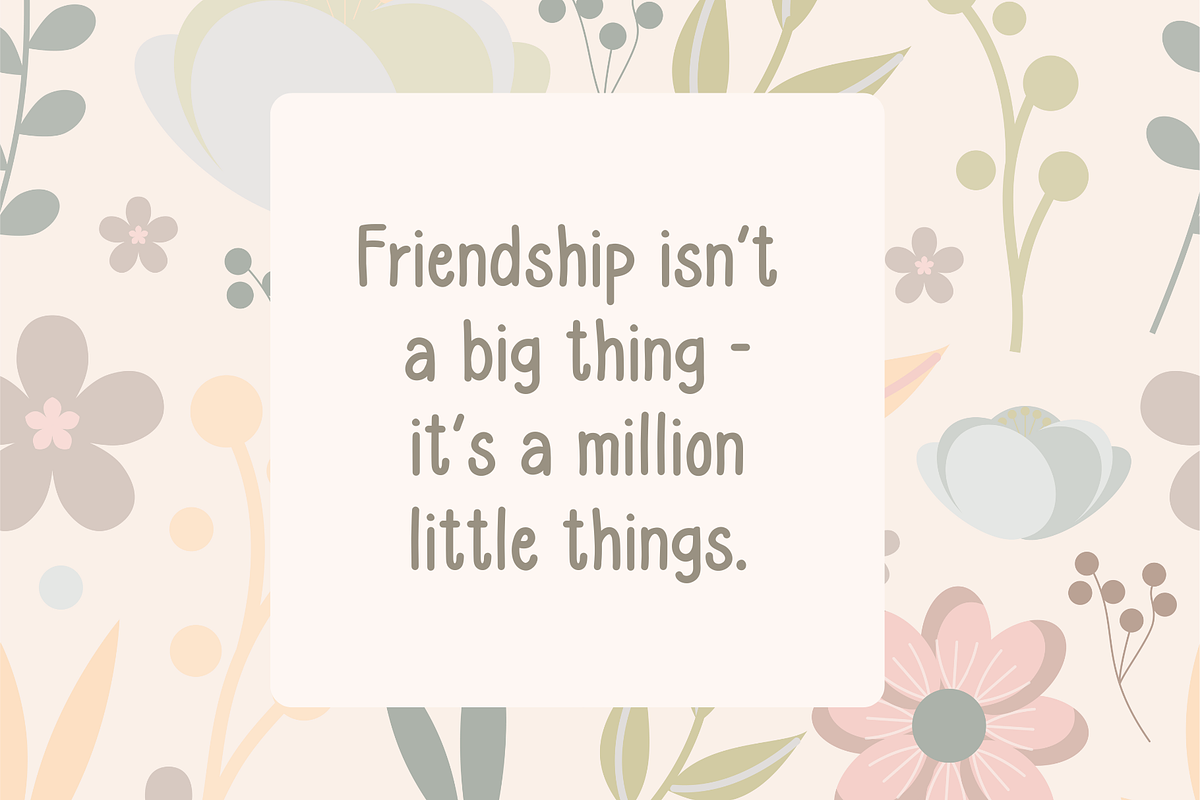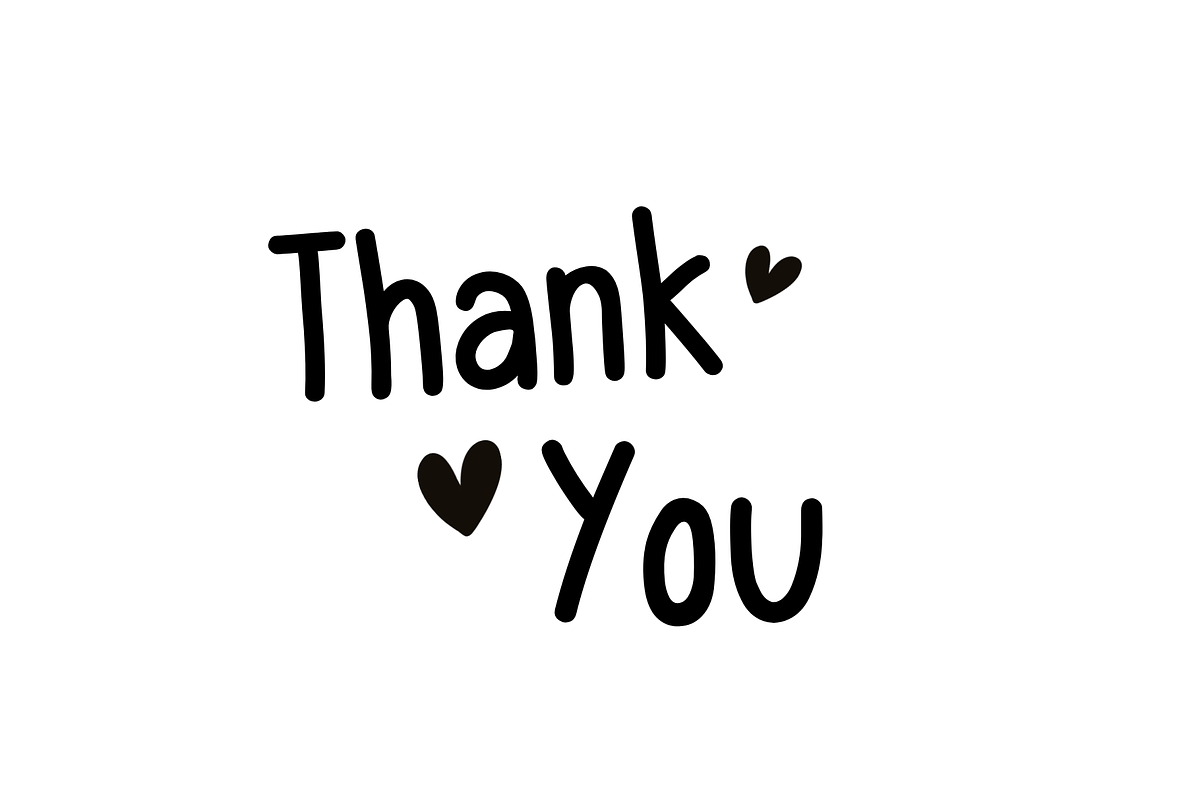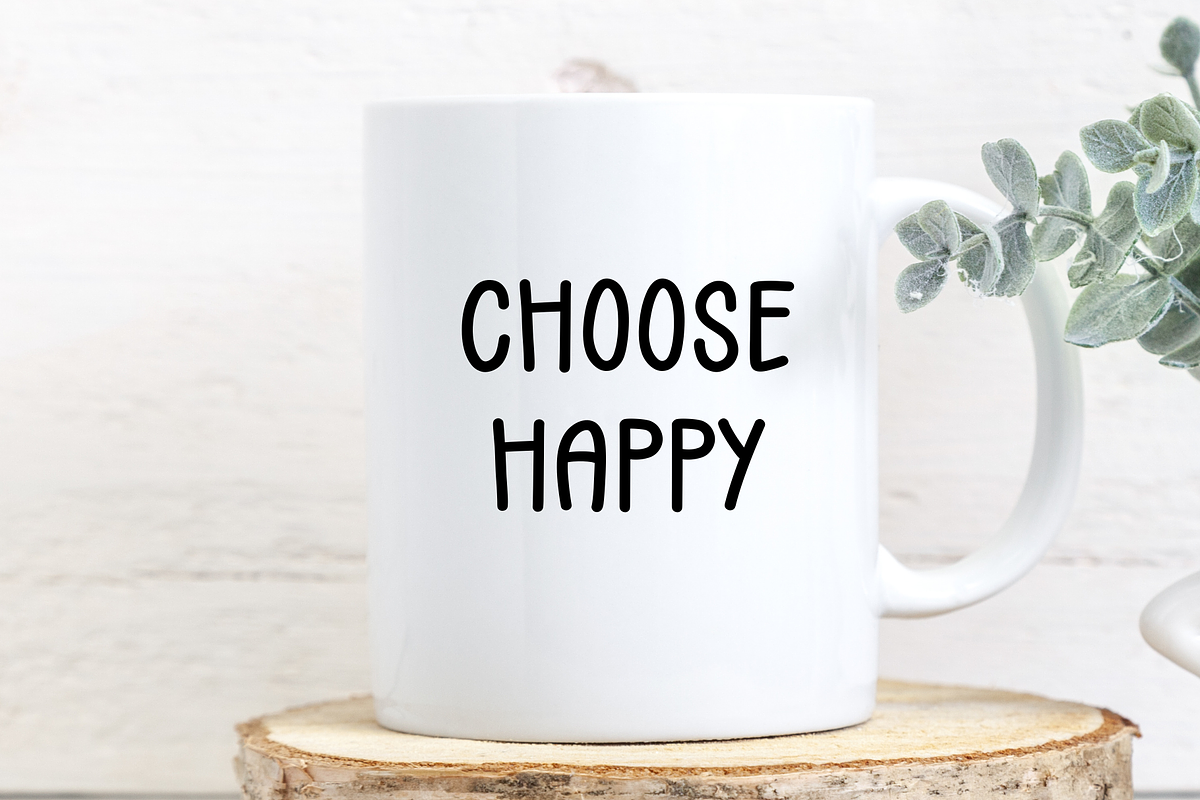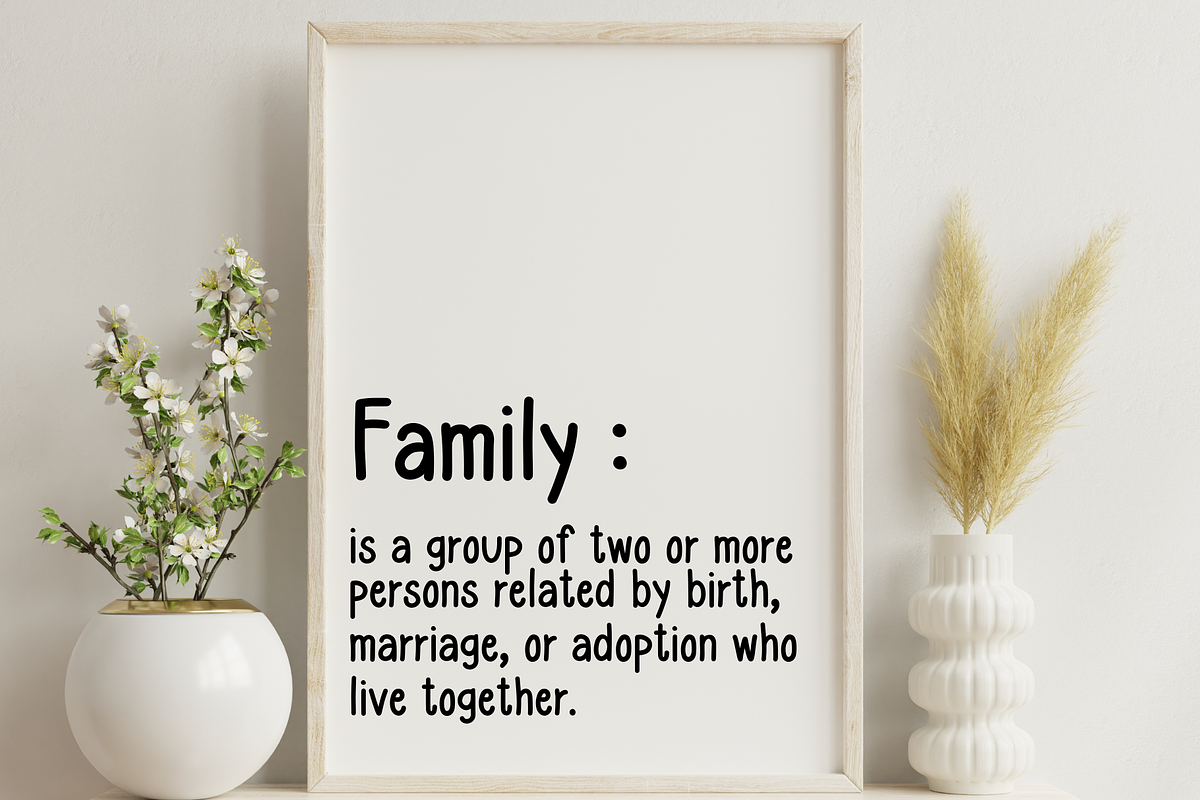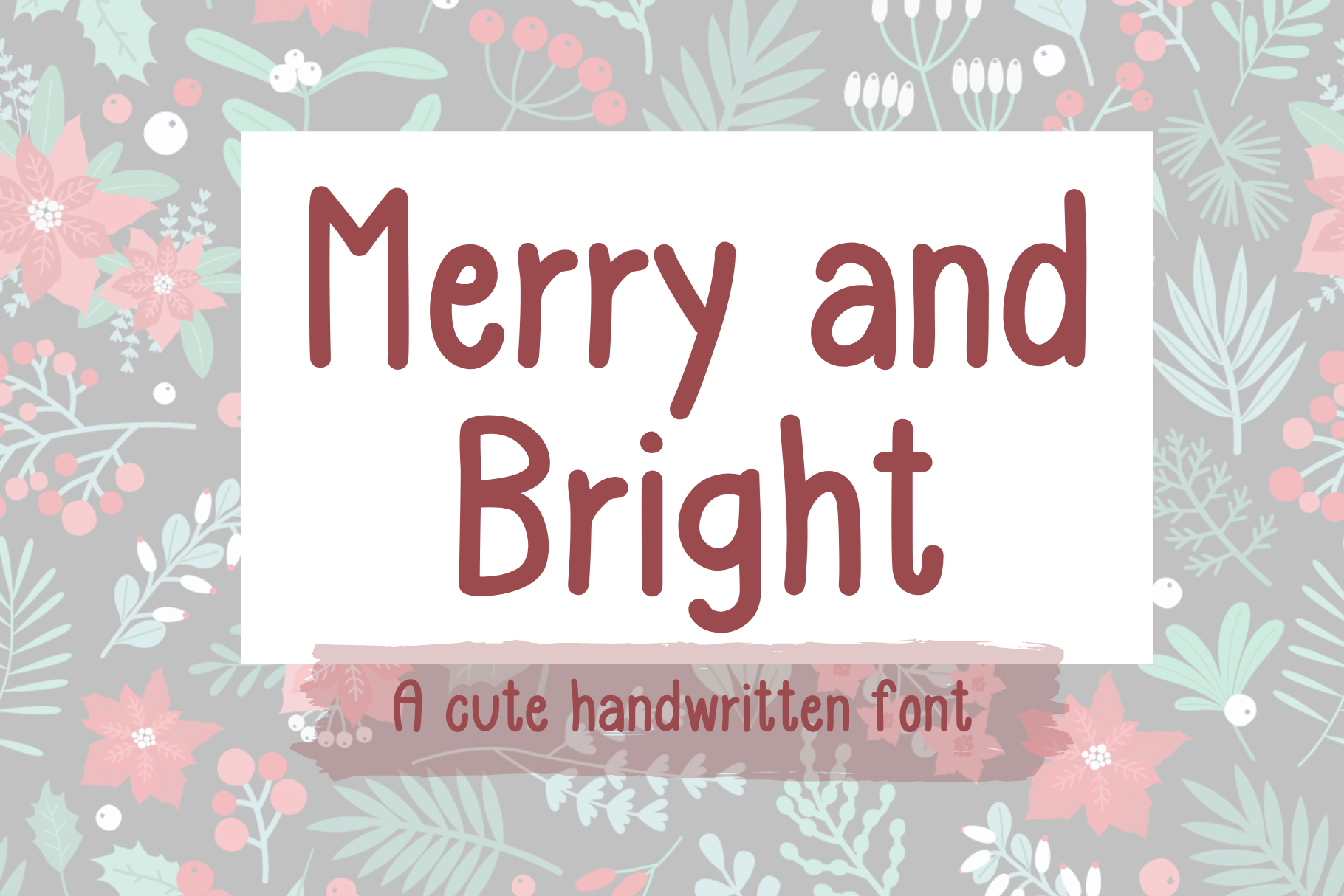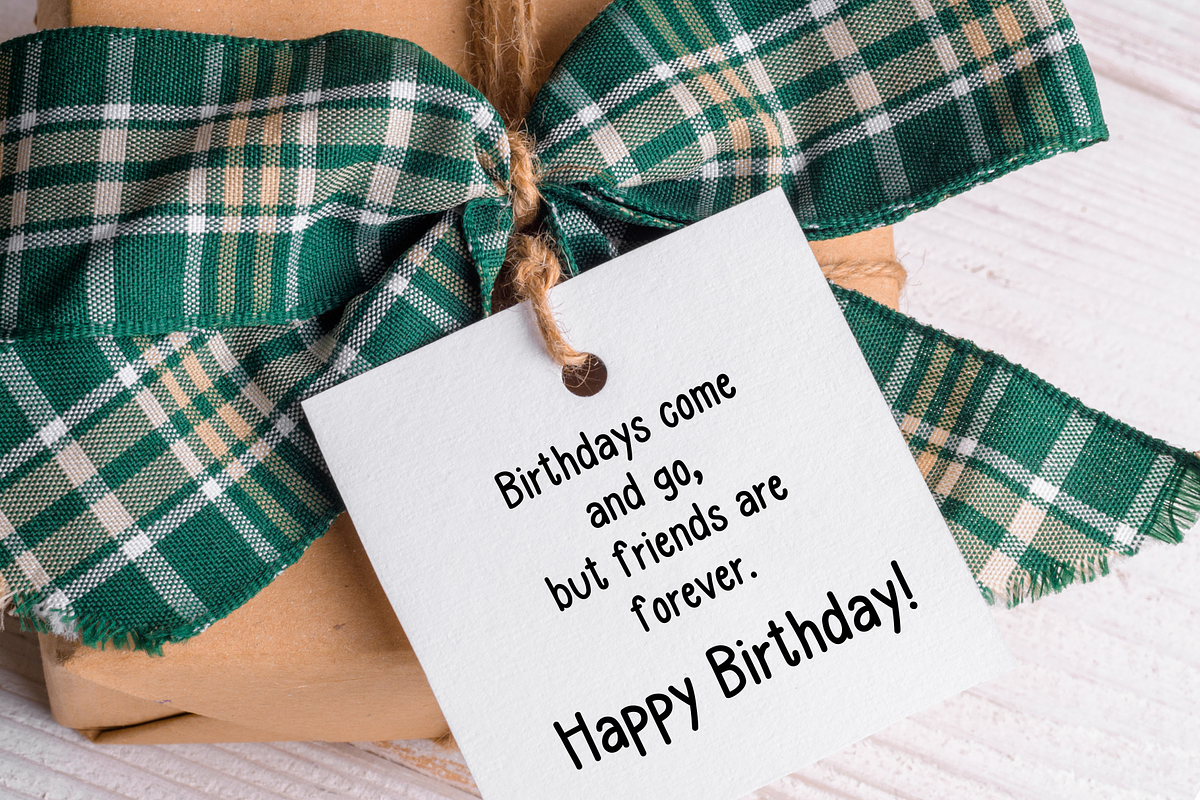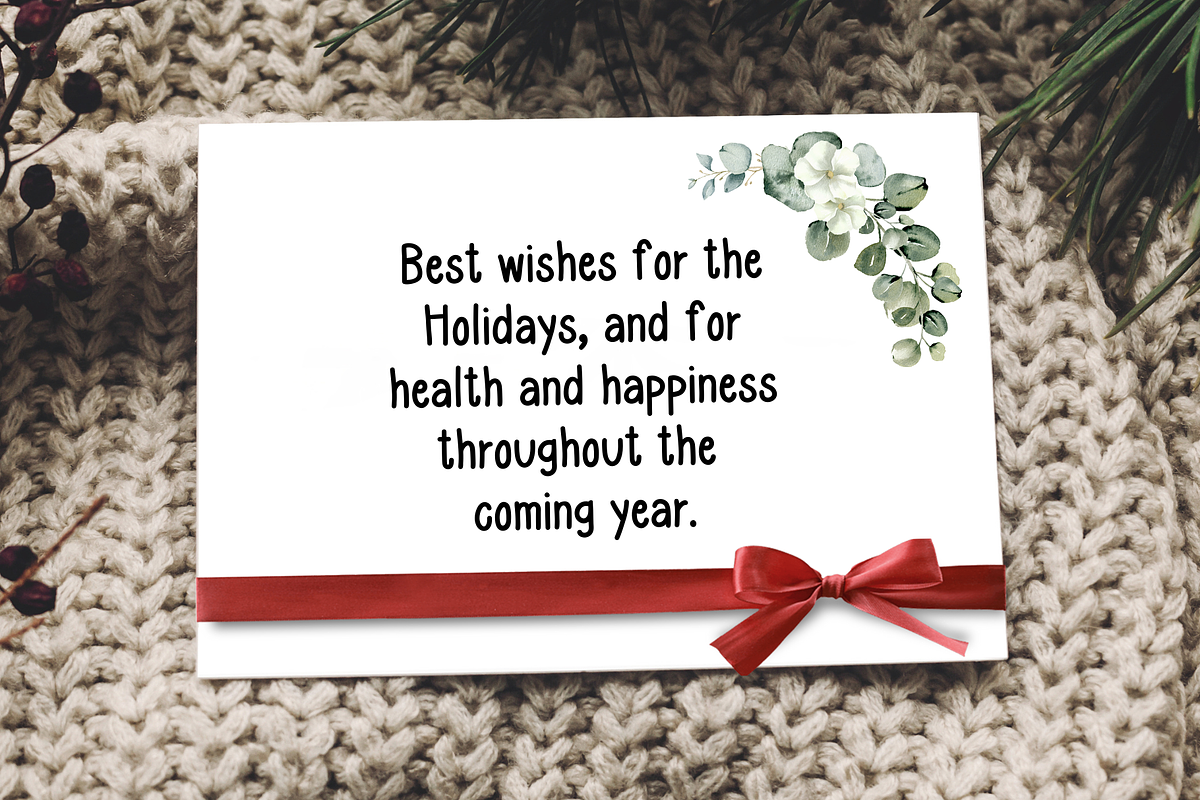
Merry & Bright Cute Handwritten Font
Merry and Bright is a handwritten font that is cute , playful , neat and clean. It is good for digital prints, quotes for facebook and Instagram, greeting cards, web font, banner, planner, journal and any occasion presentation.